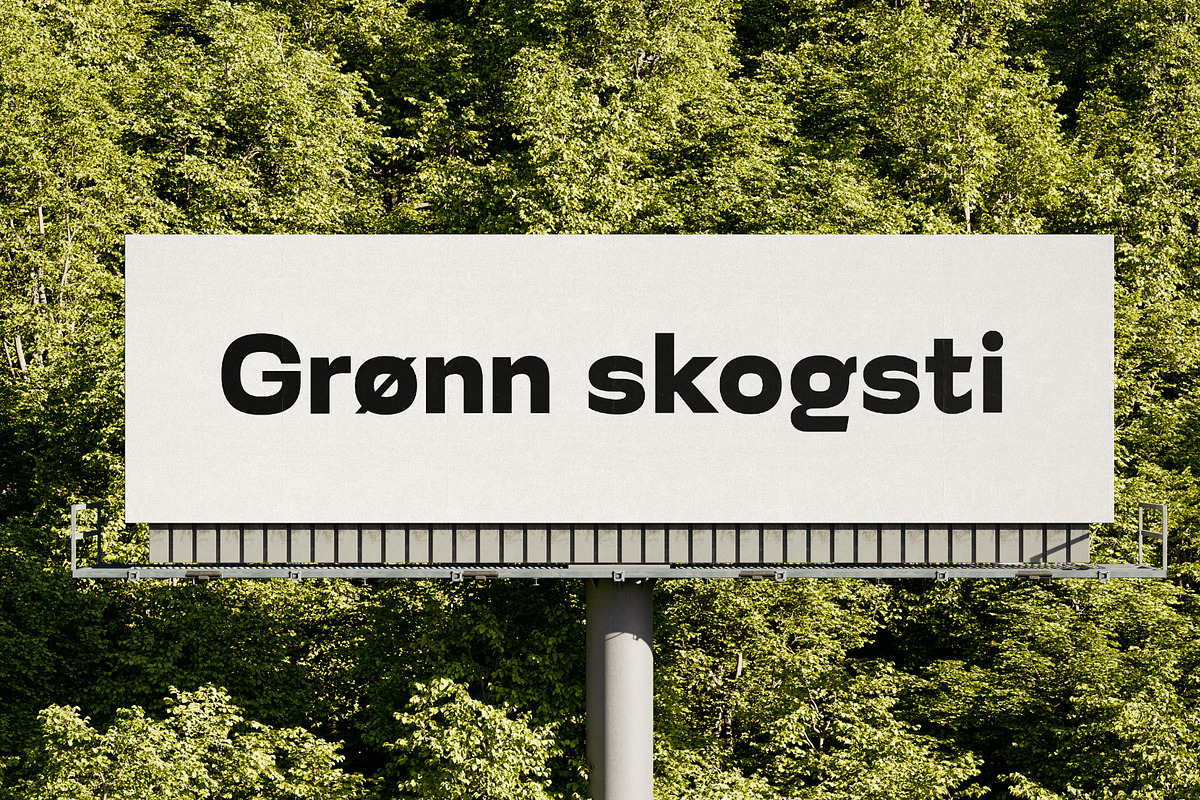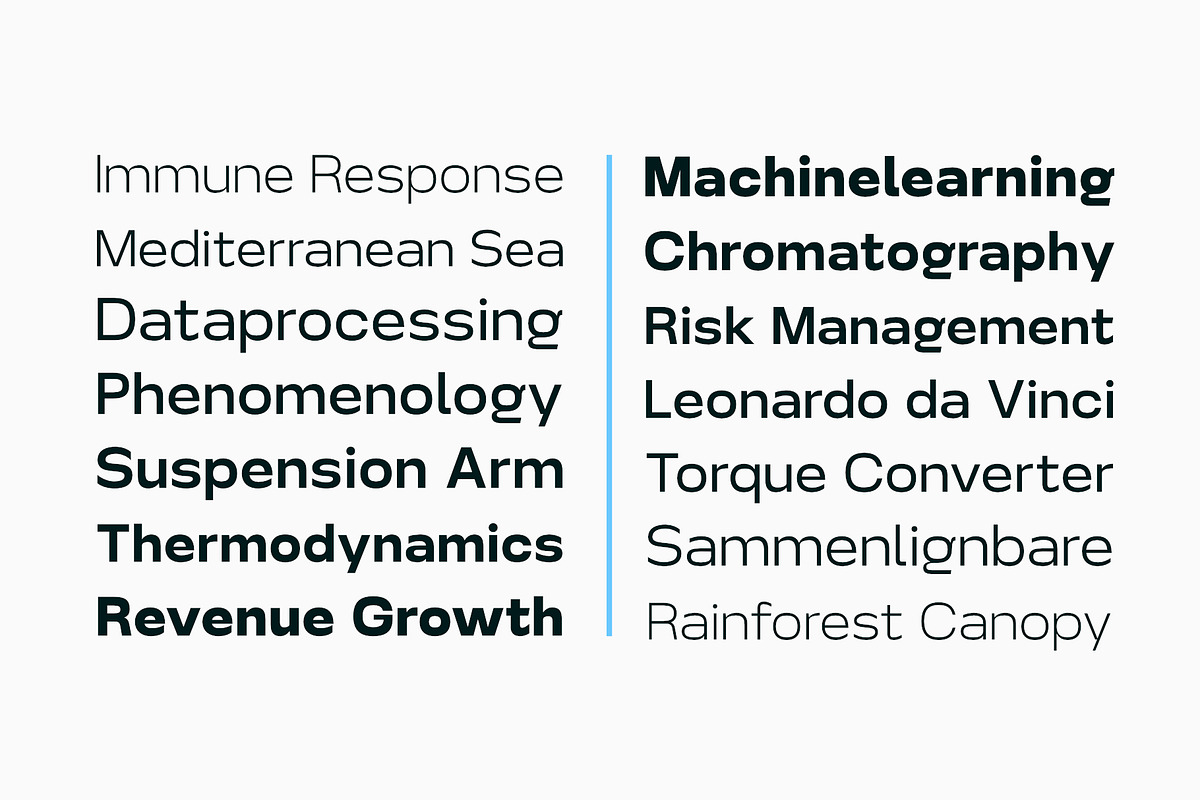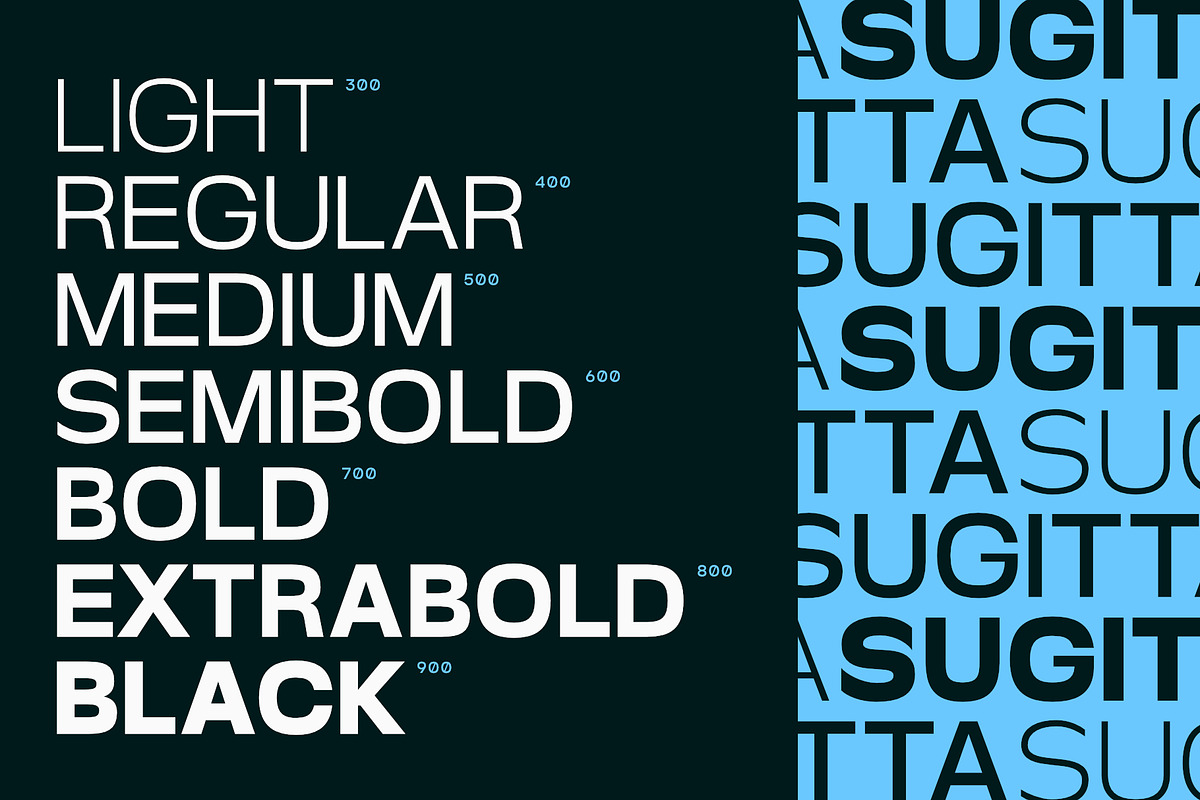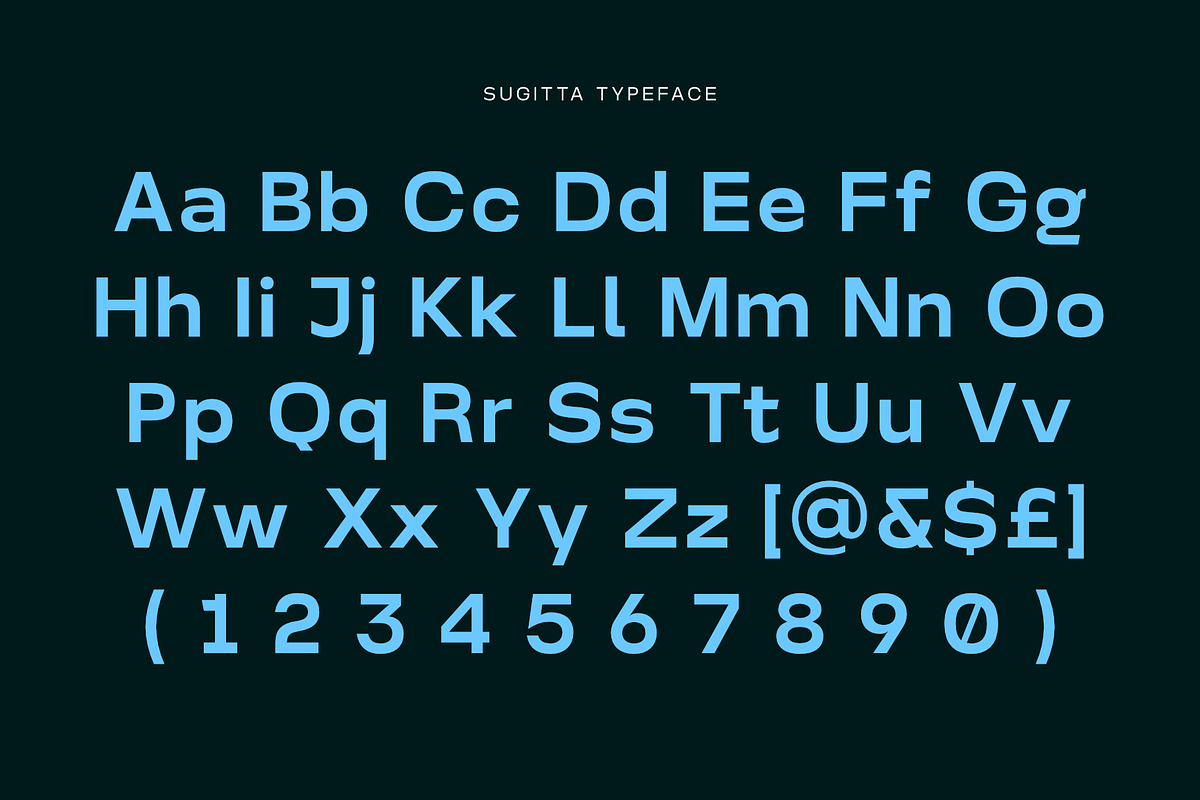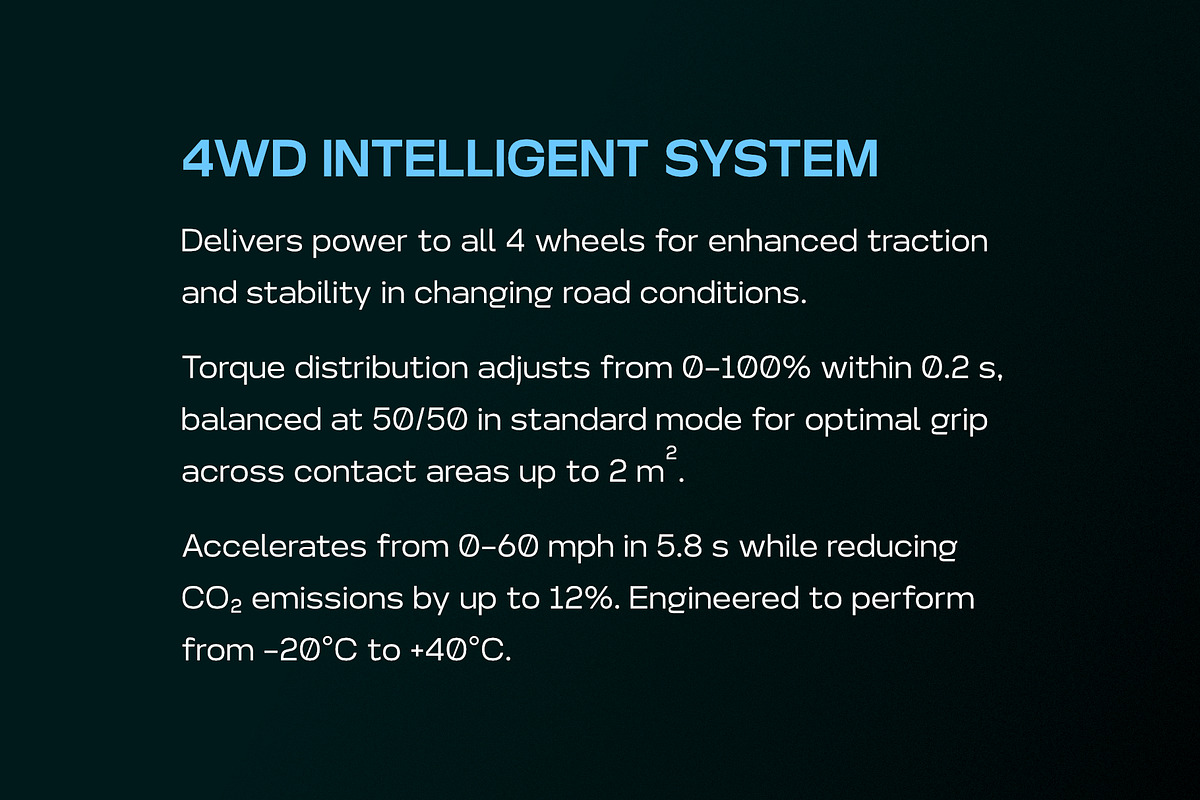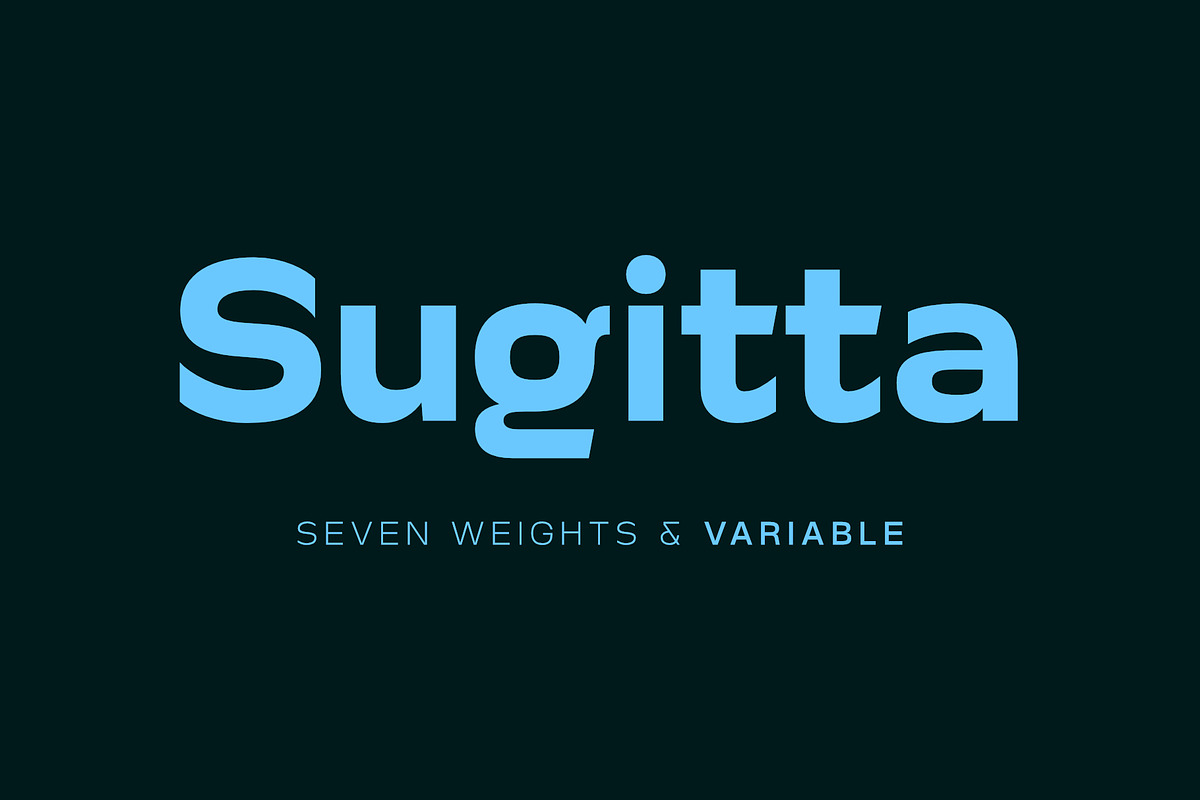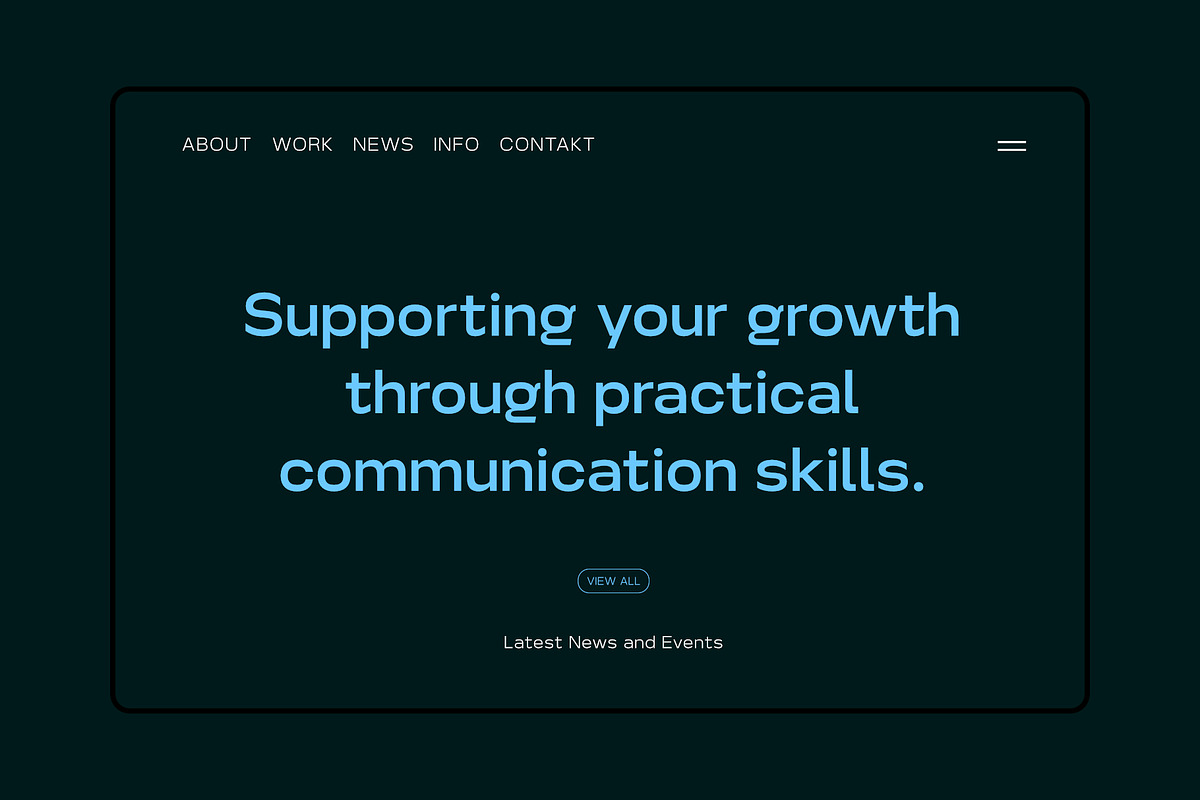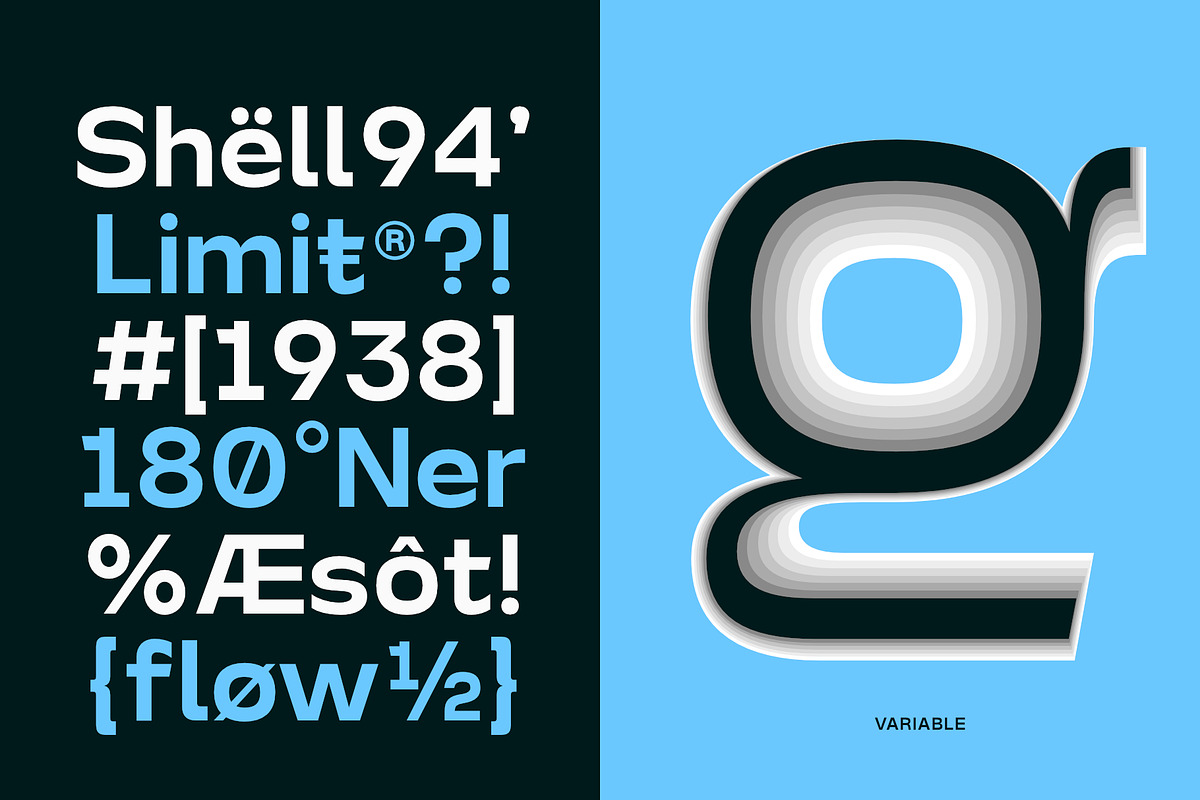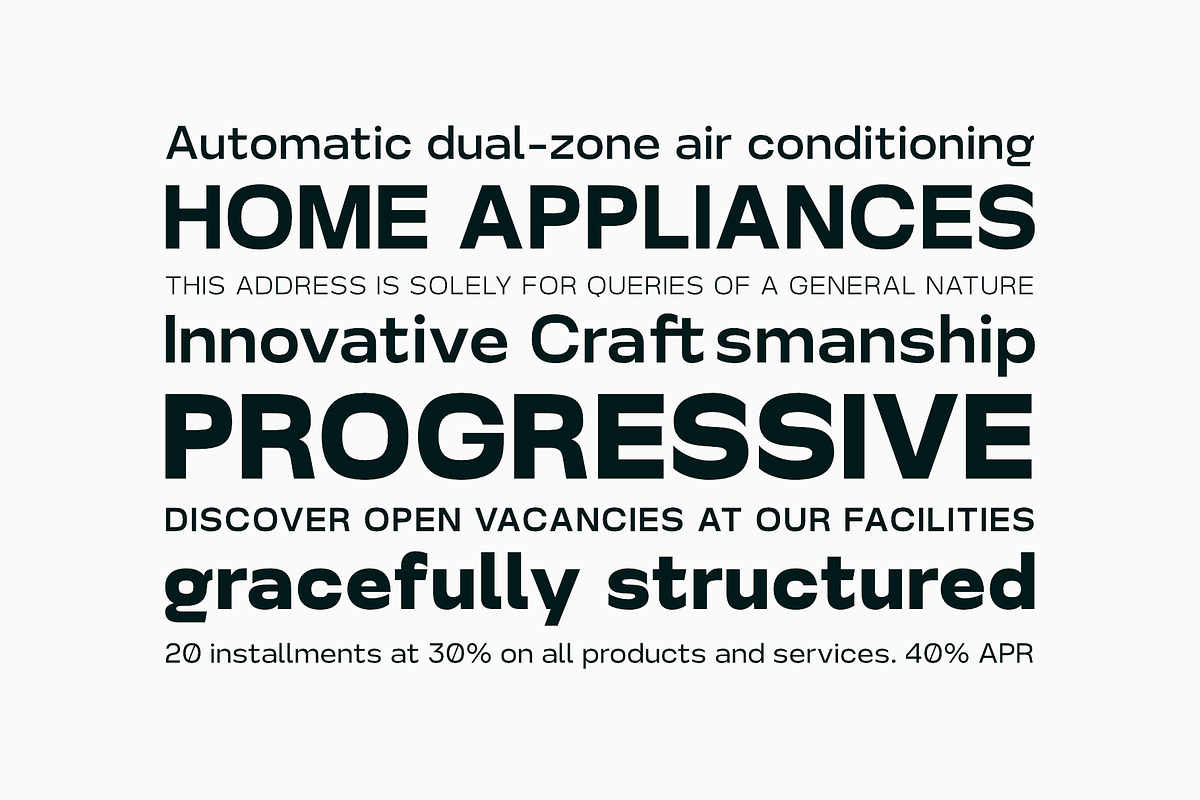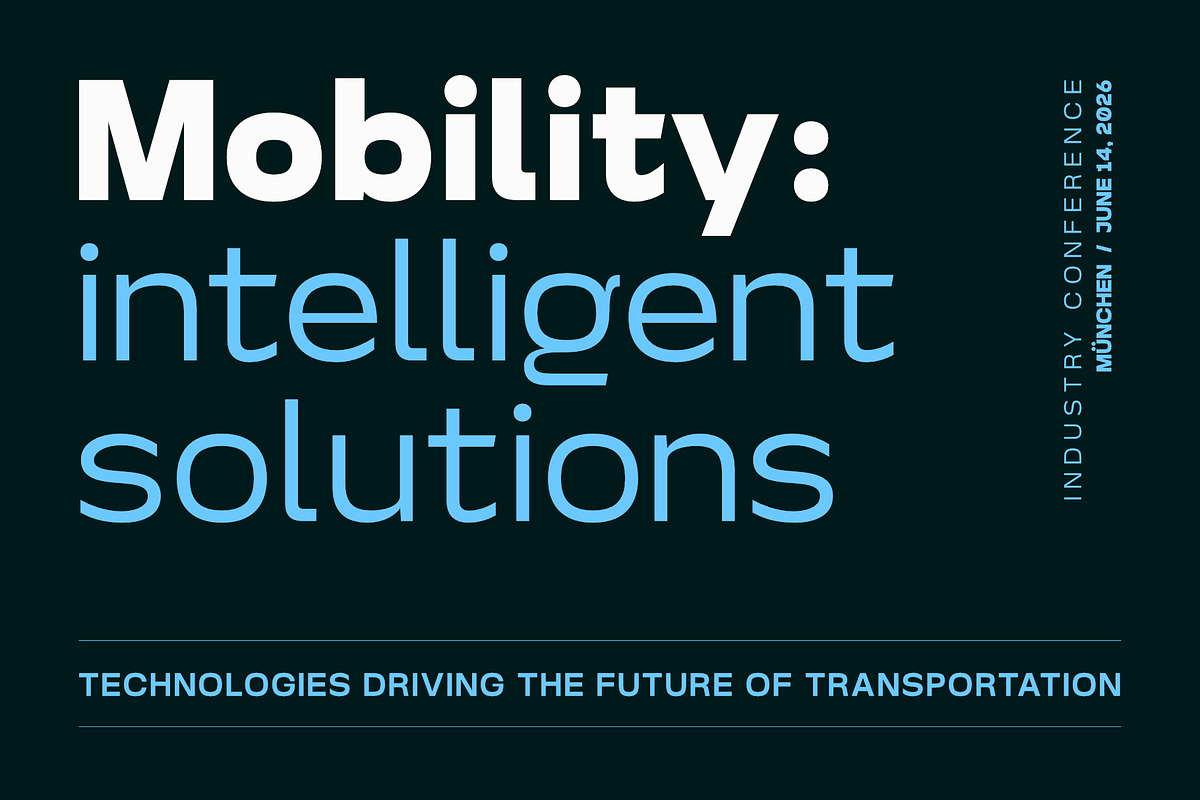
Sugitta – Modern Geometric Sans
Sugitta is a modern geometric sans-serif designed for clarity, confidence and versatility. With seven carefully balanced weights and a fully functional variable version, it adapts seamlessly to branding, editorial, web and interface design.
Its soft curves combined with precise structure create a clean yet friendly tone — ideal for communication-driven projects.
7 weights (Light to Black)
Variable font included
Clean geometric construction
Optimized for display and UI use
Perfect for branding, websites, presentations, corporate identity and modern digital products.